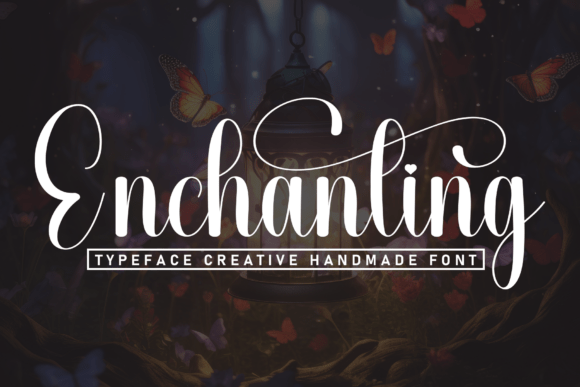
Unleash Your Creativity with the Enchanting Font
Have you ever stared at a blank page, searching for the perfect font to bring your design to life? The struggle is real, but what if I told you that there’s a solution that can make your creative moments a little more magical?
Introducing the Enchanting Font, a special collection of creative products designed to give you an extraordinary experience. Whether you’re a professional designer or a hobbyist, this font is perfect for various projects that require a touch of elegance and sophistication. With its latest style letters, you can create stunning wall displays, wedding invitations, social media post logos, and more. The Enchanting Font is a valuable tool for designers who want to elevate their work and make a lasting impression.
Key Features of Enchanting Font
- Unique Characteristics: Enchanting Font features a magical and whimsical design, with intricate details and ornate flourishes, perfect for creating a sense of wonder and enchantment in your designs.
Designer Review: Enchanting Font
As a designer, I was excited to dive into the Enchanting Font and see what it had to offer. ✨ First off, I love the whimsical and magical vibe this font gives off. It’s perfect for any project that needs a touch of fantasy or romance. The font is highly customizable, with a wide range of styles and sizes to choose from.
The font’s legibility is also a major plus, making it suitable for both body text and headings. The curves are smooth, and the letterforms are well-proportioned, which makes it a pleasure to read. ✨ The font also works well in both digital and print formats, which is a big plus for designers.
- ⚠️ Limited font weights: While the font has a good range of styles, it’s lacking in font weights, which can make it less versatile for certain design projects.
- ⚠️ Not ideal for minimalist designs: With its ornate and decorative nature, the Enchanting Font might not be the best fit for minimalist or modern designs.
Overall, I’d give the Enchanting Font 4 out of 5 stars. While it has some limitations, it’s a great choice for designers who want to add a touch of magic to their projects. With a little creativity, this font can help you create truly enchanting designs.
Enchanting Font Practical Application Guide
Tips for Getting the Most Out of Enchanting Font
Experiment with different font sizes, colors, and styles to create a unique and captivating design. Use Enchanting Font to add emphasis to headings or titles, or to create a sense of whimsy and playfulness in your design.
Enchanting Font is perfect for designing invitations, greeting cards, and other creative projects that require a touch of magic and whimsy. It’s also great for adding a personal touch to blog posts, social media graphics, and other digital content.
Alternatives to “Enchanting Font” for Designers
Cinzel
Cinzel is a beautiful calligraphy-inspired font ideal for headings and titles. It’s perfect for designs that require elegance and sophistication. When to use: Luxury brands, high-end products, and formal invitations.
Compared to Enchanting Font, Cinzel has a more refined and classic look. While Enchanting Font is playful and whimsical, Cinzel is sophisticated and elegant.